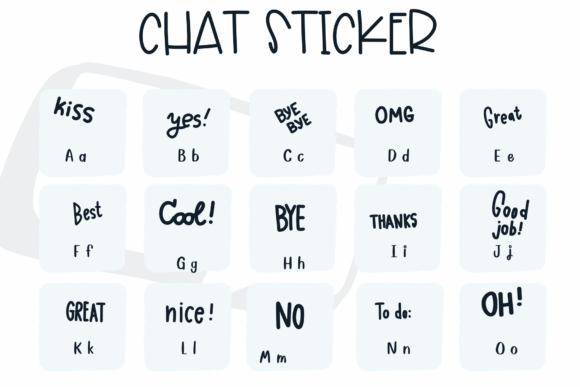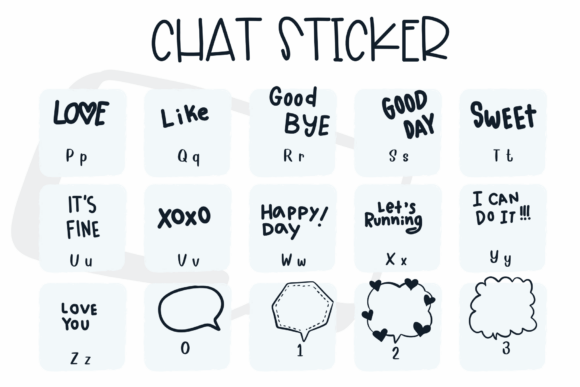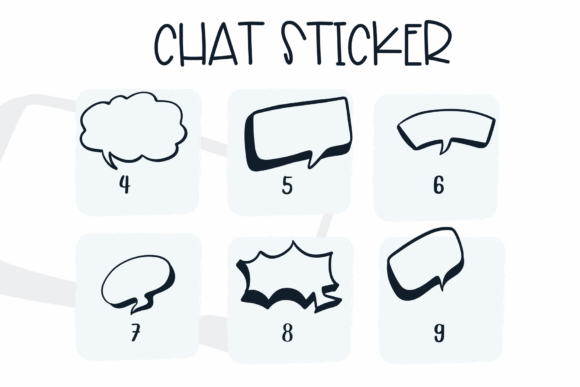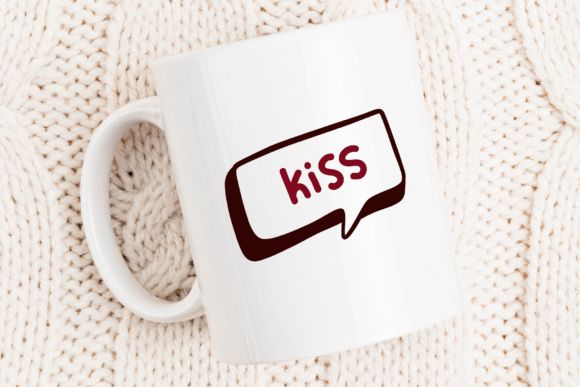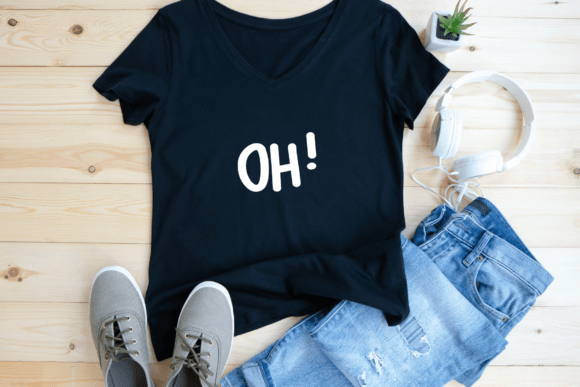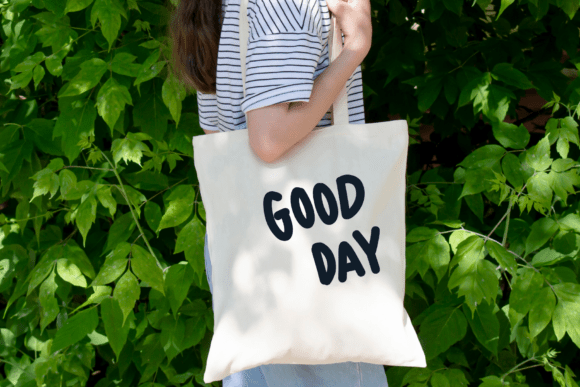
Introducing Chat Sticker Font: Elevate Your Creative Projects with a Sketched Style
Are you a designer, crafter, or DIY enthusiast looking for a unique font to add a personal touch to your projects? Look no further than Chat Sticker Font, a dingbats font with a charming sketched style. This versatile font is perfect for a wide range of creative endeavors, from wedding invitations and crafts to decorations, logos, and more.
What is Chat Sticker Font?
Chat Sticker Font is a dingbats font that features a distinctive sketched style, giving it a hand-drawn and informal feel. The font is designed to resemble stickers or stamps, making it ideal for adding a playful and whimsical touch to your projects. With its unique character set, Chat Sticker Font offers a wide range of creative possibilities, from cute and colorful designs to more sophisticated and elegant layouts.
Chat Sticker Font is an excellent choice for designers and crafters who want to add a personal touch to their projects. Here are some ideas for using this versatile font:
- Wedding Invitations: Create beautiful and unique wedding invitations that reflect the couple’s personality with Chat Sticker Font.
- DIY Crafts: Add a personal touch to your DIY crafts, such as handmade cards, gift tags, and decorations.
- Decorations: Use Chat Sticker Font to create custom decorations, such as banners, garlands, and signs.
- Logos: Create a distinctive logo for your business or brand with Chat Sticker Font.
- Social Media Graphics: Add a playful touch to your social media graphics, such as Instagram posts and Facebook covers.
Key Features of Chat Sticker Font
Here are some key features that make Chat Sticker Font an excellent choice for designers and crafters:
- Unique Sketched Style: Chat Sticker Font features a distinctive sketched style that gives it a hand-drawn and informal feel.
- Dingbats Font: The font is a dingbats font, which means it features a wide range of symbols, icons, and graphics.
- High-Quality Design: Chat Sticker Font is designed with high-quality and precision, ensuring that it looks great in any size or resolution.
- Easily Customizable: The font is easily customizable, allowing you to adjust the size, color, and style to fit your project’s needs.
Tips for Using Chat Sticker Font
Here are some tips for using Chat Sticker Font in your creative projects:
- Experiment with Colors: Chat Sticker Font looks great in a wide range of colors, so don’t be afraid to experiment and find the perfect color scheme for your project.
- Mix and Match: Combine Chat Sticker Font with other fonts or graphics to create a unique and eye-catching design.
- Use it for Headlines: Chat Sticker Font is perfect for headlines, titles, and captions, adding a playful and attention-grabbing touch to your design.
- Add Texture and Patterns: Add texture and patterns to your design to give it a more organic and handmade feel.
Chat Sticker Font is a versatile and creative font that can elevate your projects and add a personal touch. With its unique sketched style and dingbats design, this font is perfect for designers, crafters, and DIY enthusiasts who want to create something special. Whether you’re working on a wedding invitation, DIY craft, or logo, Chat Sticker Font is an excellent choice. So why not give it a try and see how it can enhance your creative projects?